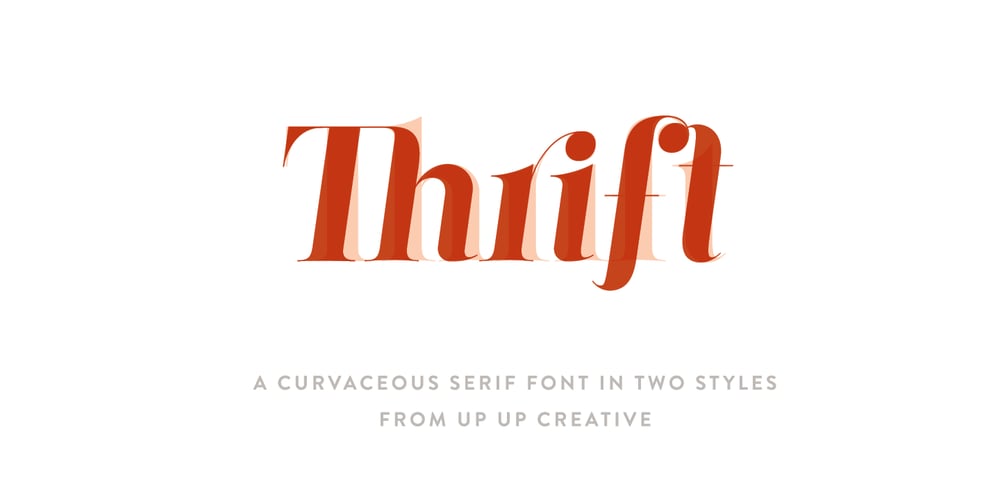
Thrift
Thrift font
Thrift Font Family was designed by Julie Green and published by Up Up Creative. Thrift contains 2 styles and family package options. Thrift is a beautifully curvaceous serif font with smooth curves and fine lines and plenty of OpenType features. Thrift is perfect for your next editorial, advertising, branding, book, or invitation project. Thrift Regular and Thrift Italic each include approximately 800 glyphs. Specific OpenType features include stylistic alternates, several stylistic sets with features like curved ascenders and descenders, multilingual support (including multiple currency symbols – for kicks I even included a Bitcoin symbol in there), standard and proportional oldstyle numbers, and four ampersand styles. It also includes 24 standard and discretionary ligatures that add character and interest to your typography. The OpenType features can be very easily accessed by using OpenType-savvy programs such as Adobe Illustrator and Adobe InDesign. (To access most of these awesome features in Microsoft Word, you’ll need to get comfortable with the advanced tab of Word’s font menu. If you have questions about this, ask me!) Mail support : julie@upupcreative.com Find inspiration (and sneak peeks at my next font-in-progress) on Instagram: http://instagram.com/julieatupupcreative Facebook : https://www.facebook.com/upupcreative Pinterest: https://www.pinterest.com/upupcreative My website: http://upupcreative.com Please enjoy! I can’t wait to see what you make with Thrift! Feel free to use the #upupcreative and #thriftfont tags to show me what you’ve been up to!